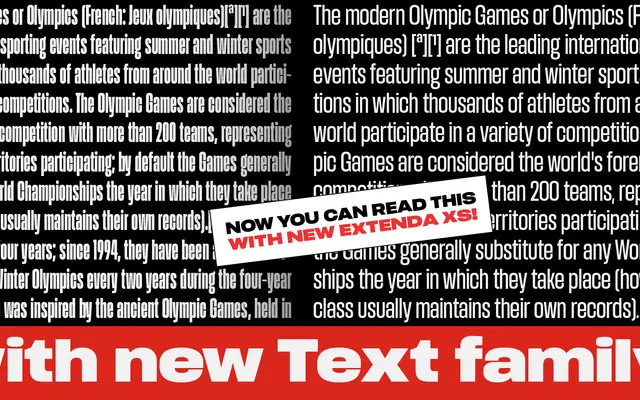
Extenda
Zetafonts · Francesco Canovaro, Andrea Tartarelli, Cosimo Lorenzo Pancini, Mario De Libero · 2018
A width-axis sans-serif spanning eleven steps from ultra-condensed to ultra-wide, built for display headlines and logo work across Latin, Cyrillic and Greek.
Rather than varying weight, Extenda organises its 67-plus styles along a width axis, running from the hairline-thin Pica through to the sprawling Yotta, with italic and backslant cuts at each step. The XS subfamily introduces wider counter spaces and open tracking for improved legibility at the compact end, while the Extendable style uses OpenType logic to increment each letter's width automatically, producing a dynamic visual rhythm. Variable font support, small caps, old-style figures and multiple stylistic sets round out a family aimed squarely at editorial display and identity work.
A sans-serif designed explicitly for display use, with its primary axis being width rather than weight, spanning eleven steps from ultra-condensed to ultra-wide. The Extendable variant and XS subfamily reinforce its display-first, experimental character.